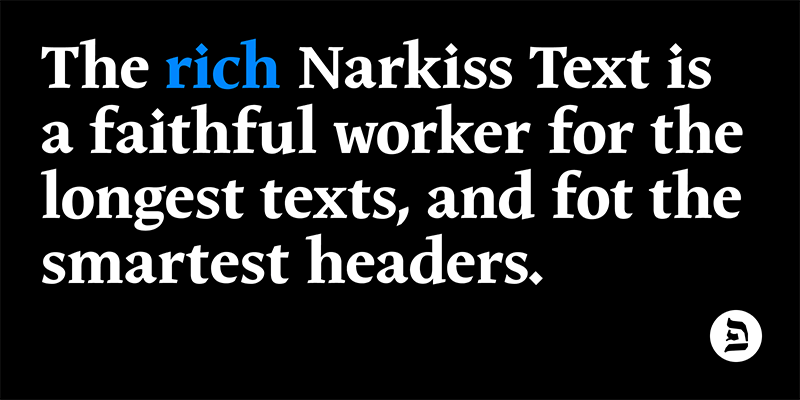
Narkiss Text Variable Font Free Download is a beautifully refined Hebrew typeface optimized for long-form reading and high-volume text environments. A part of the esteemed Narkiss type family, this version is tailored specifically for body text, offering clarity, warmth, and timeless elegance in both print and digital formats.
Its variable font functionality gives designers complete control over weight, allowing smooth transitions between light and bold—ideal for responsive typography, user interfaces, editorial hierarchies, and multilingual layouts. Whether you're setting books, articles, or complex Hebrew/Latin combinations, Narkiss Text ensures consistent rhythm and optimal legibility.
The design maintains the graceful proportions and classic charm that Narkiss fonts are known for, while improving screen performance and typographic flexibility. With balanced spacing, soft curves, and sharp precision, Narkiss Text Variable Font Free Download is a go-to choice for projects that require both beauty and readability.
Elegant, efficient, and deeply rooted in Hebrew typographic tradition, Narkiss Text Variable is the perfect companion for serious content creators looking to blend cultural legacy with modern design workflows.